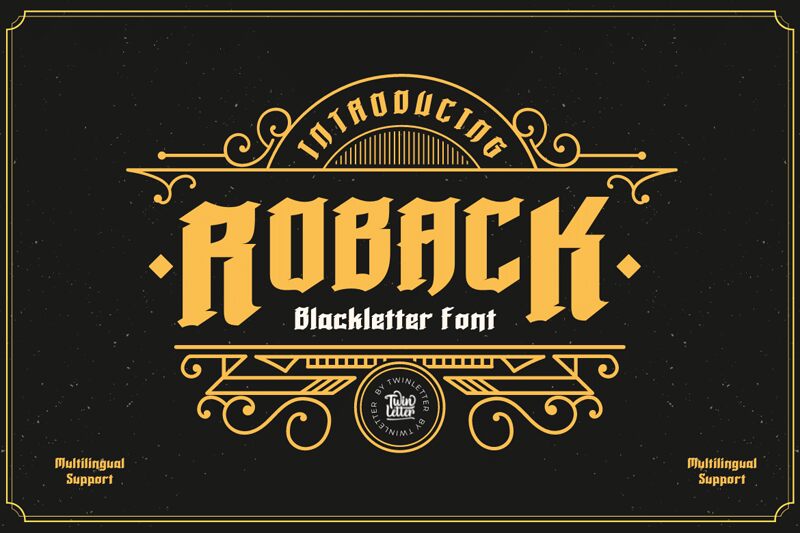
Roback, designed by Twinletter, is a modern gothic font with bold and condensed features. Drawing inspiration from classic blackletter fonts, Roback offers bold and unique shapes that are perfect for vintage Victorian concept designs.
This versatile font is well-suited for a variety of projects, including beverage and food packaging designs that aim to evoke a sense of nostalgia. It also works seamlessly for pomade or barbershop designs, adding a touch of sophistication and old-world charm.
With all letters included and full punctuation support, Roback is ideal for projects that require a bold yet premium-class feel while maintaining a vintage aesthetic.